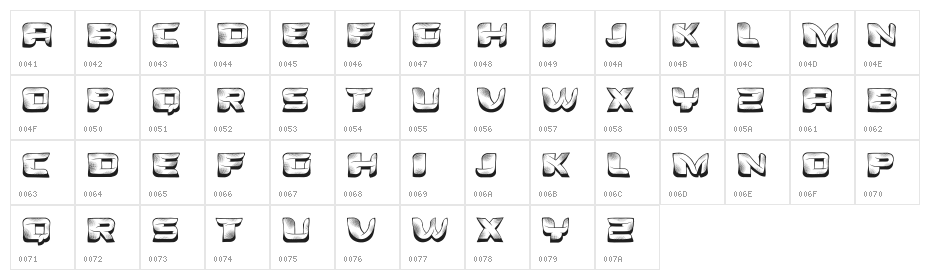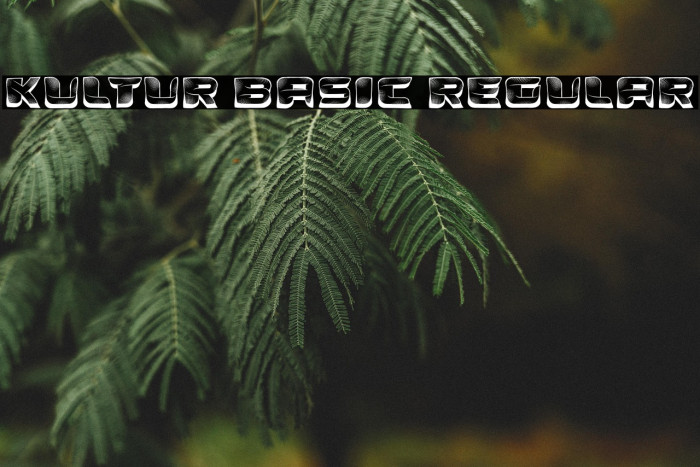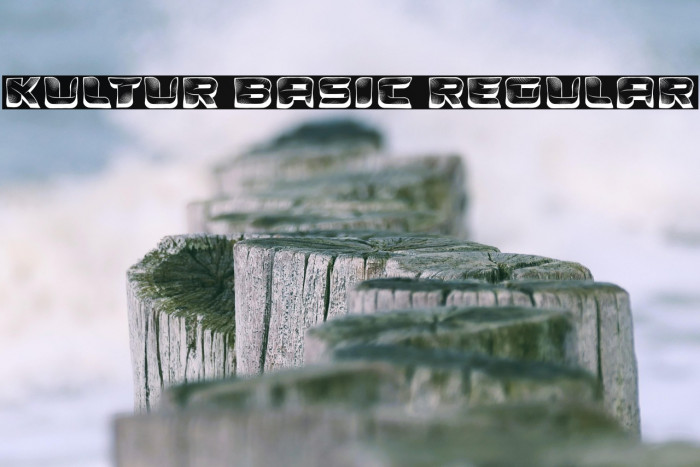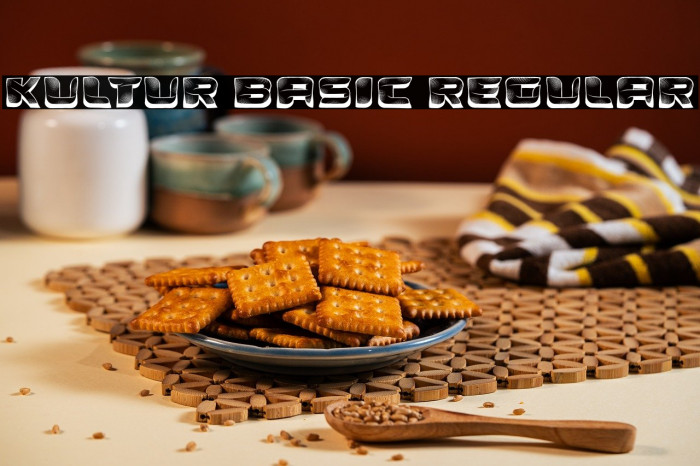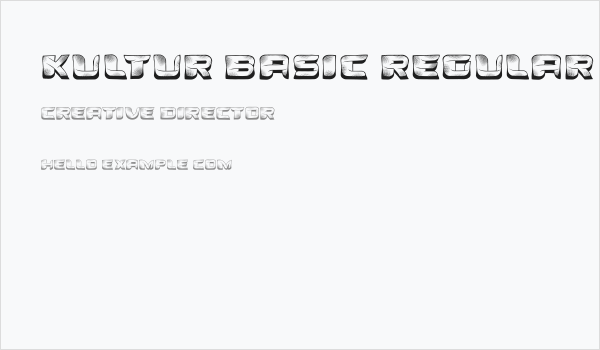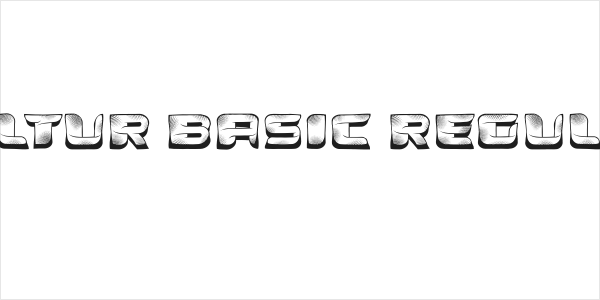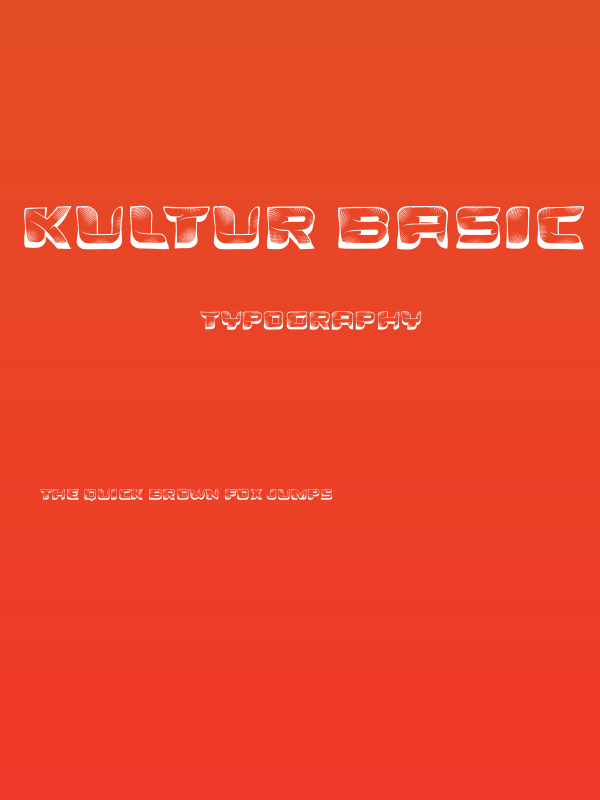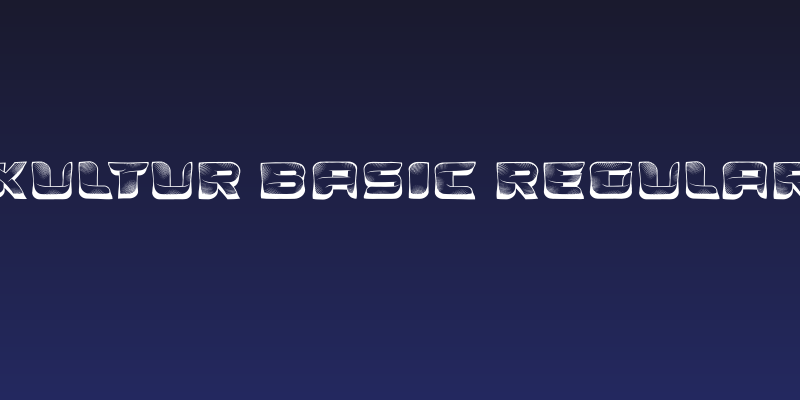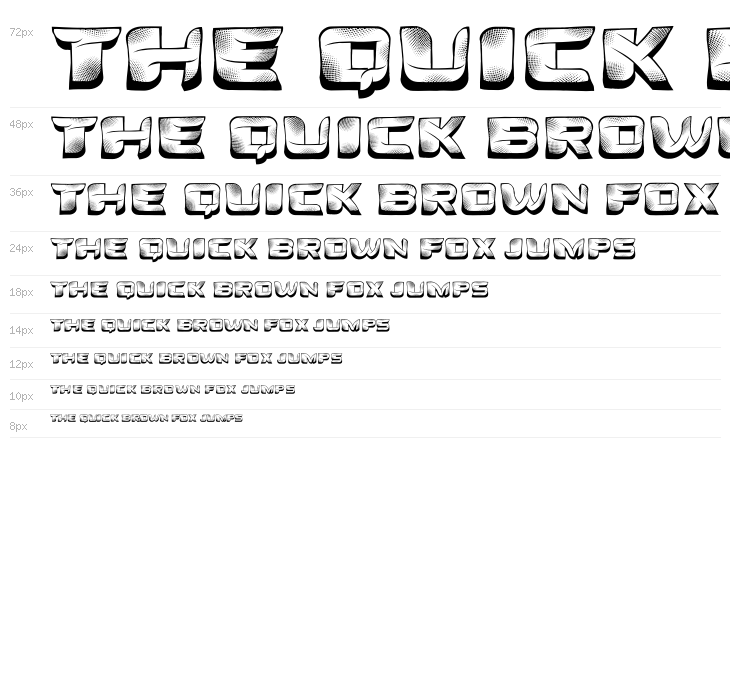
Kultur Basic Regular Font
Kultur Basic Regular Description
This font features a bold, three-dimensional appearance with a distinct engraved effect. The characters are uppercase, showcasing a unique blend of modern and vintage styles. Each letter is designed with intricate shading that gives a sense of depth and texture, reminiscent of classic woodcut or engraved prints. The bold strokes and shadowing create a striking visual impact, making it ideal for attention-grabbing designs. The font's style is both decorative and functional, suitable for a variety of creative applications.
| Proposed Projects | Ideal for poster designs, book covers, branding projects, and any creative work that requires a bold, eye-catching typeface. |